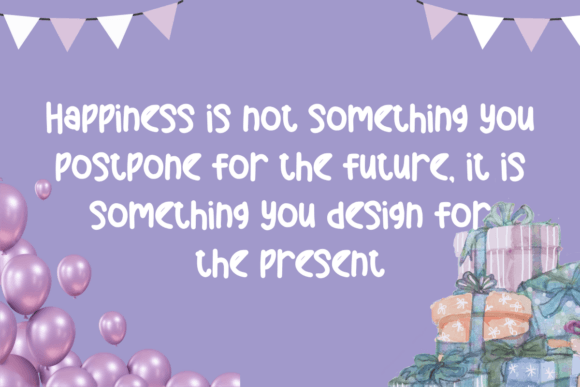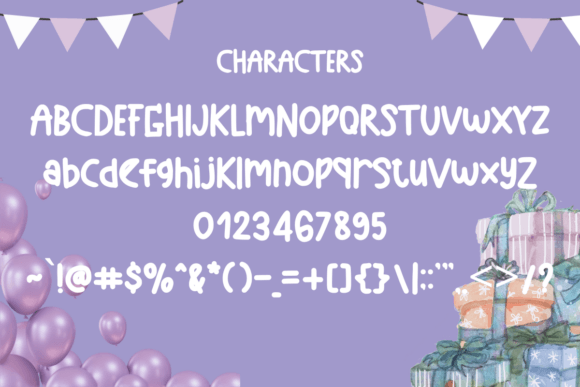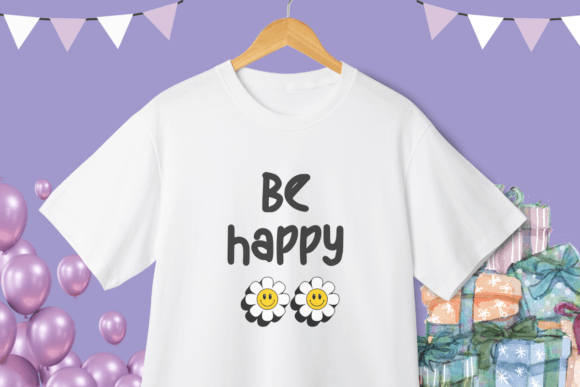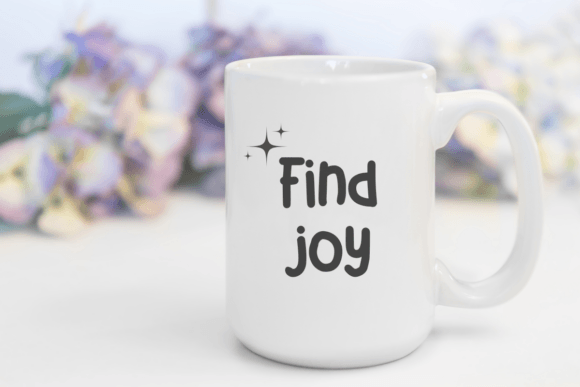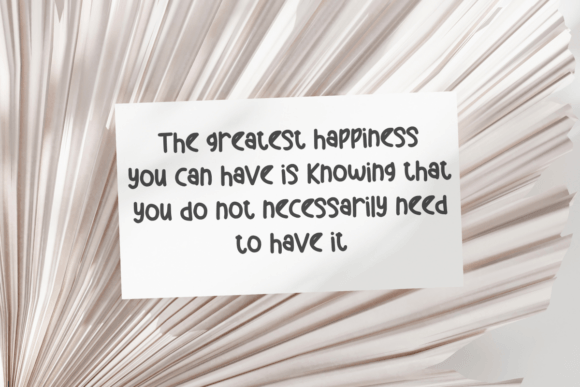
Introducing Gift Holly Font: The Perfect Addition to Your Design Arsenal
Are you a designer, crafter, or DIY enthusiast looking for a fun and versatile font to elevate your creative projects? Look no further than Gift Holly Font, a delightful sans serif font that’s perfect for a wide range of applications. In this article, we’ll dive into the features and benefits of Gift Holly Font, and explore how it can add a touch of personality to your designs.
What is Gift Holly Font?
Gift Holly Font is a modern sans serif font that’s designed to bring a smile to your face. With its clean lines, playful vibe, and highly legible letterforms, this font is ideal for use in various creative projects, from memos and journals to planners, interior KDPs, cards, and more. Whether you’re a seasoned designer or a crafting enthusiast, Gift Holly Font is sure to become a favorite in your collection.
Key Features of Gift Holly Font
- Fun and playful design: Gift Holly Font boasts a unique and energetic design that’s perfect for adding a personal touch to your projects.
- Sans serif style: The font’s clean and minimalist sans serif style makes it highly legible and versatile.
- Highly legible: Gift Holly Font is designed to be easy to read, even at small sizes, making it perfect for use in journals, planners, and other text-heavy projects.
- Wide range of uses: From memos and notes to greeting cards, invitations, and scrapbooks, Gift Holly Font is suitable for a wide range of creative applications.
Gift Holly Font is a dream come true for designers and crafters who want to add a personal touch to their projects. Whether you’re creating:
- Memos and journals: Add a playful touch to your notes and journals with Gift Holly Font.
- Planners and interior KDPs: Use Gift Holly Font to create visually appealing and functional planners and interior KDPs.
- Greeting cards and invitations: Make your cards and invitations stand out with the unique and playful design of Gift Holly Font.
- Scrapbooks and crafts: Add a personal touch to your scrapbooks and crafts with Gift Holly Font.
Why Choose Gift Holly Font?
With so many fonts available, why choose Gift Holly Font? Here are just a few reasons:
- Unique design: Gift Holly Font boasts a unique and playful design that’s sure to set your projects apart.
- Versatility: This font is suitable for a wide range of creative applications, making it a great addition to your design arsenal.
- Easy to use: Gift Holly Font is highly legible and easy to use, even for those with limited design experience.
In conclusion, Gift Holly Font is a fun and versatile sans serif font that’s perfect for designers, crafters, and DIY enthusiasts. With its unique design, highly legible letterforms, and wide range of uses, this font is sure to become a favorite in your collection. So why wait? Add Gift Holly Font to your design arsenal today and start creating stunning projects that showcase your personality and style!